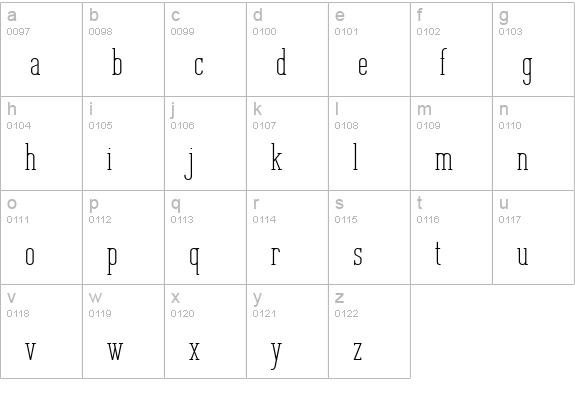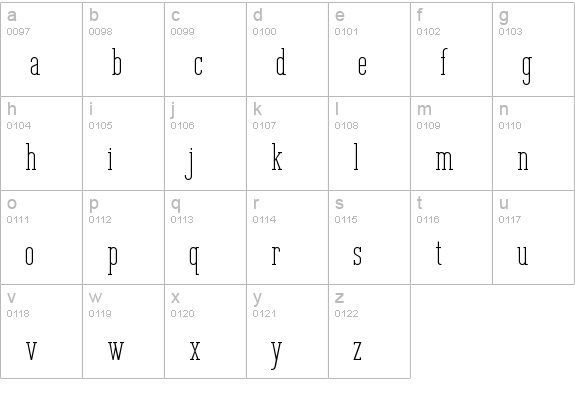
Introducing Unknown Caller BTN, a captivating and versatile font that is sure to make a statement. With its unique and edgy design, this font is perfect for adding a touch of intrigue to your creative projects. Unknown Caller BTN is a free font that offers a wide range of possibilities. Whether you're designing a logo, creating eye-catching posters, or crafting captivating social media graphics, this font will undoubtedly catch the attention of your audience. Featuring a bold and modern style, Unknown Caller BTN is perfect for projects that require a strong and impactful visual presence. Its clean and sharp lines make it highly legible, ensuring that your message gets across effortlessly. What sets Unknown Caller BTN apart is not only its stunning aesthetics but also its accessibility. This font is freely available to download at FontsMarket.com, allowing you to unleash your creativity without any financial constraints. This means that you can bring your ideas to life without breaking the bank. So why wait? Download Unknown Caller BTN today and let your imagination run wild. Whether you're a professional designer or a passionate hobbyist, this font will undoubtedly become an essential tool in your creative arsenal. Don't miss out on the opportunity to make a lasting impression with this captivating and freely accessible font.